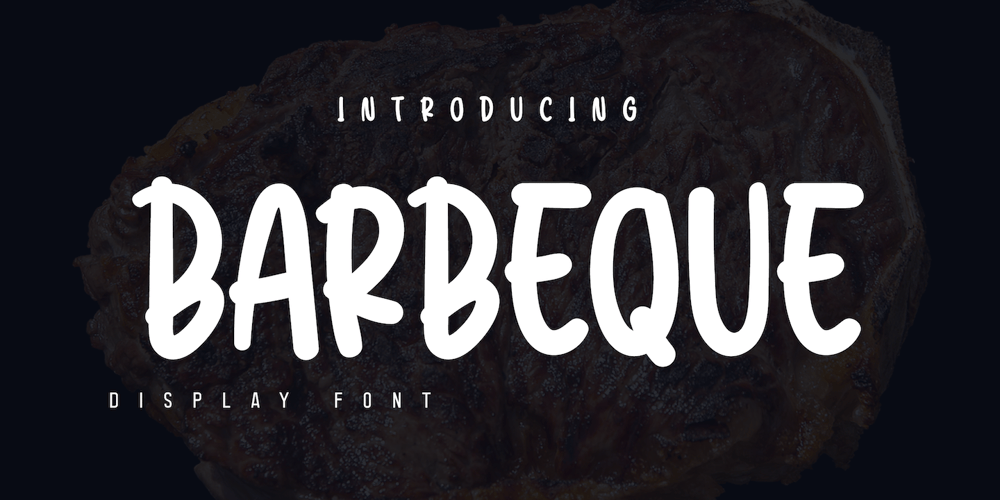
Barbeque Font Family was designed by Rozikan and published by Twinletter. Barbeque contains 1 styles and family package options. Introducing our newest font called Barberque, this font is designed with an abstract and beautiful handwritten theme, so that when used it can create a relaxed yet memorable impression for the viewer.start using this font to create an ideal and balanced design in each of your presentations.Perfect for use in advertising banners, t-shirts, print media, food or beverage promotions, titles and all your designs that require a touch of the hand, this font is definitely worth using.